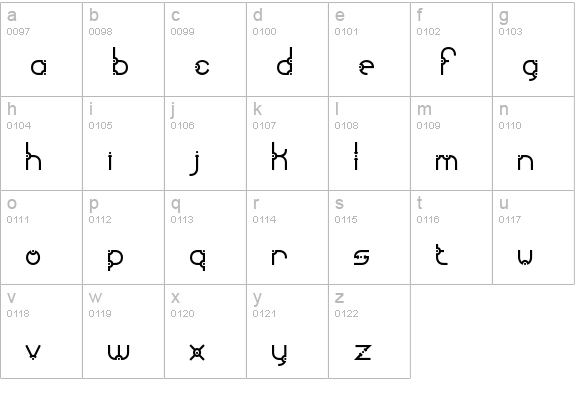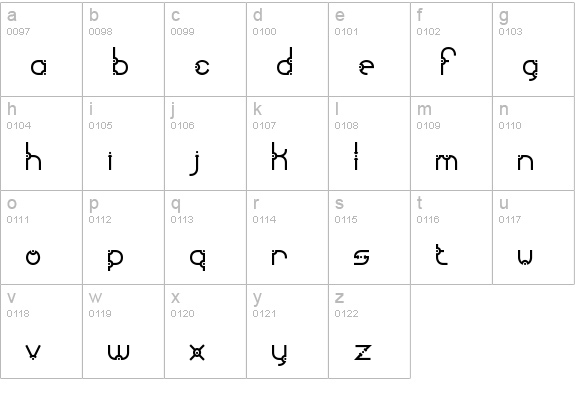
Granular BRK Font Details
Granular BRK font is a versatile and modern typeface that is perfect for adding a unique touch to your design projects. With its granular texture and bold, eye-catching letters, this font is sure to make a statement. Whether you're working on a poster, logo, website, or any other project that requires a standout font, Granular BRK is the perfect choice. And the best part? Granular BRK font is completely free to download at FontsMarket.com. That's right, you can add this stylish font to your collection without spending a dime. So why wait? Download Granular BRK font today and take your designs to the next level.